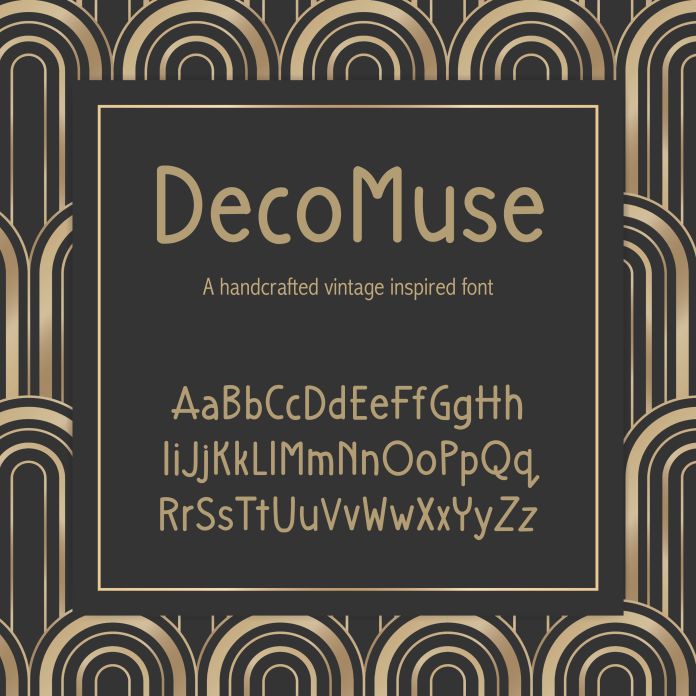
DecoMuse is a charming craft font that blends the elegance of Art Deco with the personal touch of hand-drawn design. Its bold geometric lines and graceful curves capture the spirit of the 1920s while maintaining a warm, handcrafted feel.
Perfect for vintage-inspired projects, DecoMuse adds a stylish and approachable look to invitations, logos, posters, and more. Its subtle imperfections bring character, making every design stand out with timeless sophistication. This .ttf font includes numbers and the most used punctuation characters.